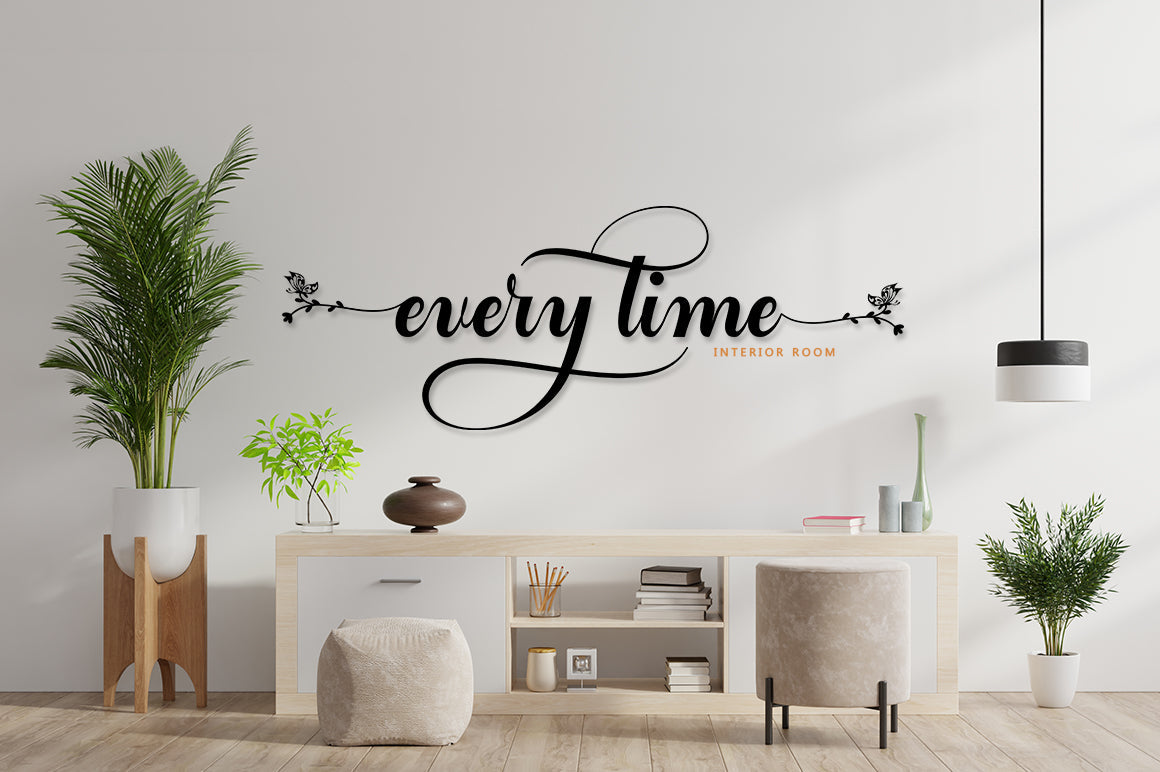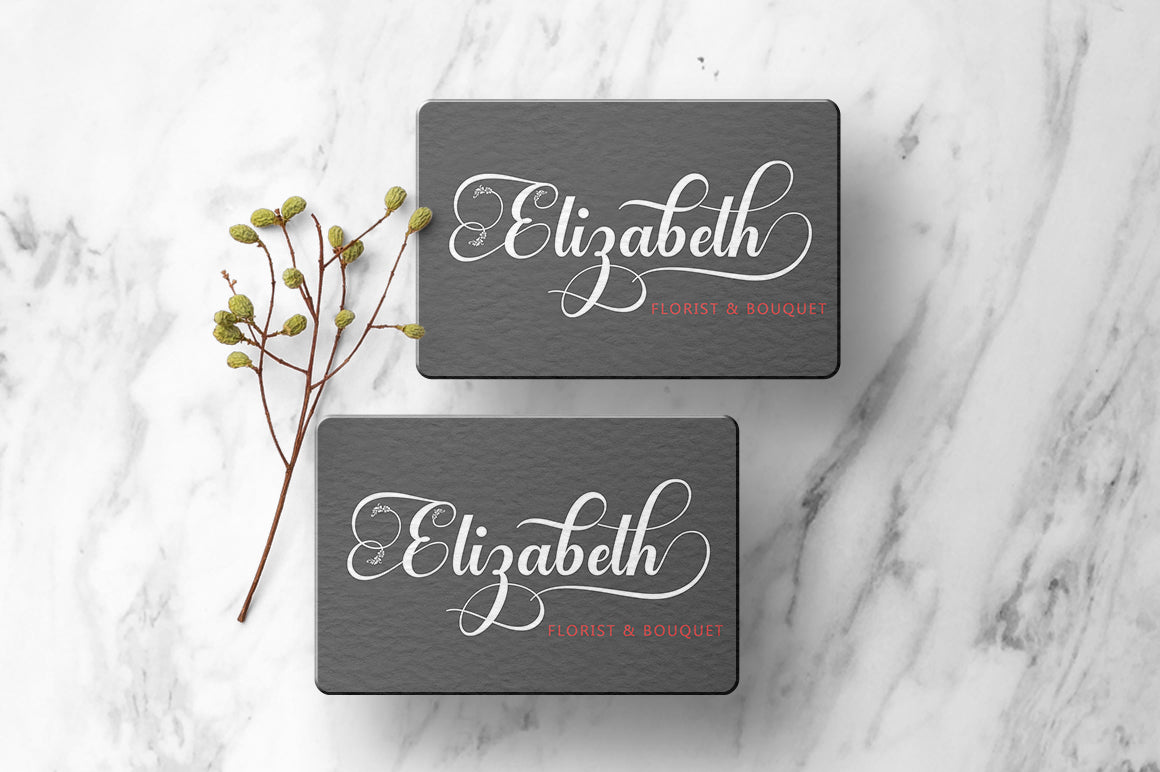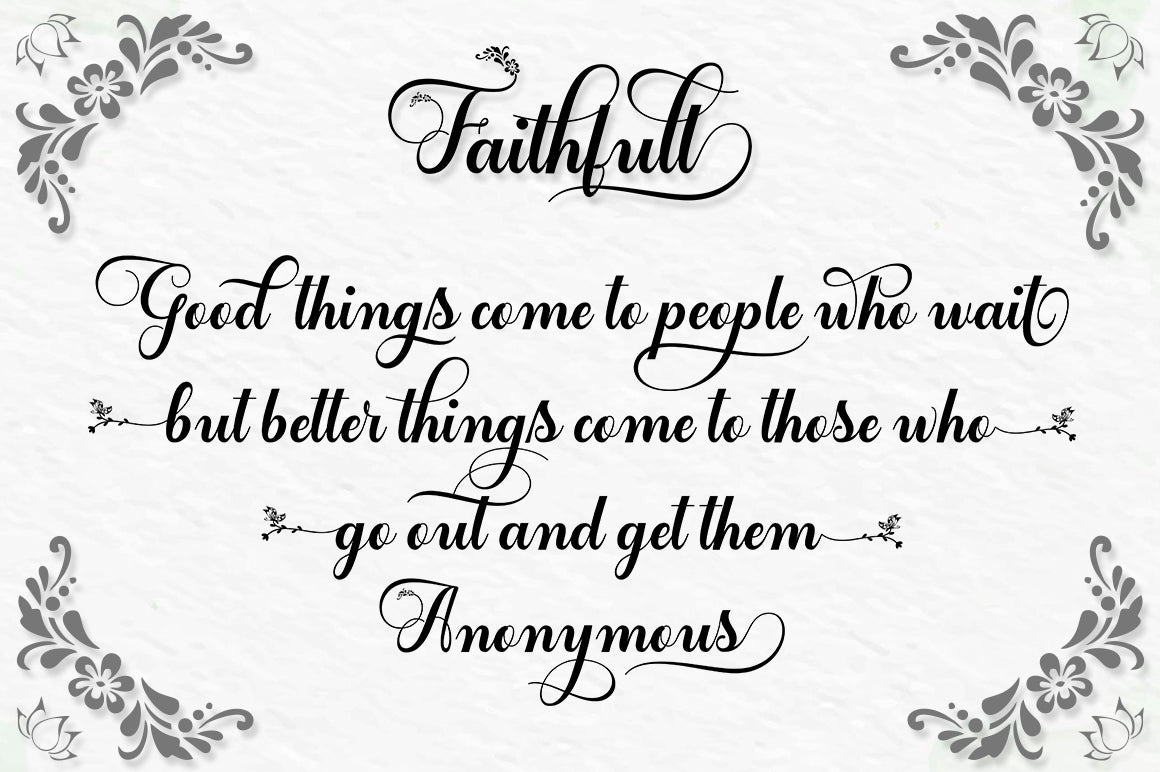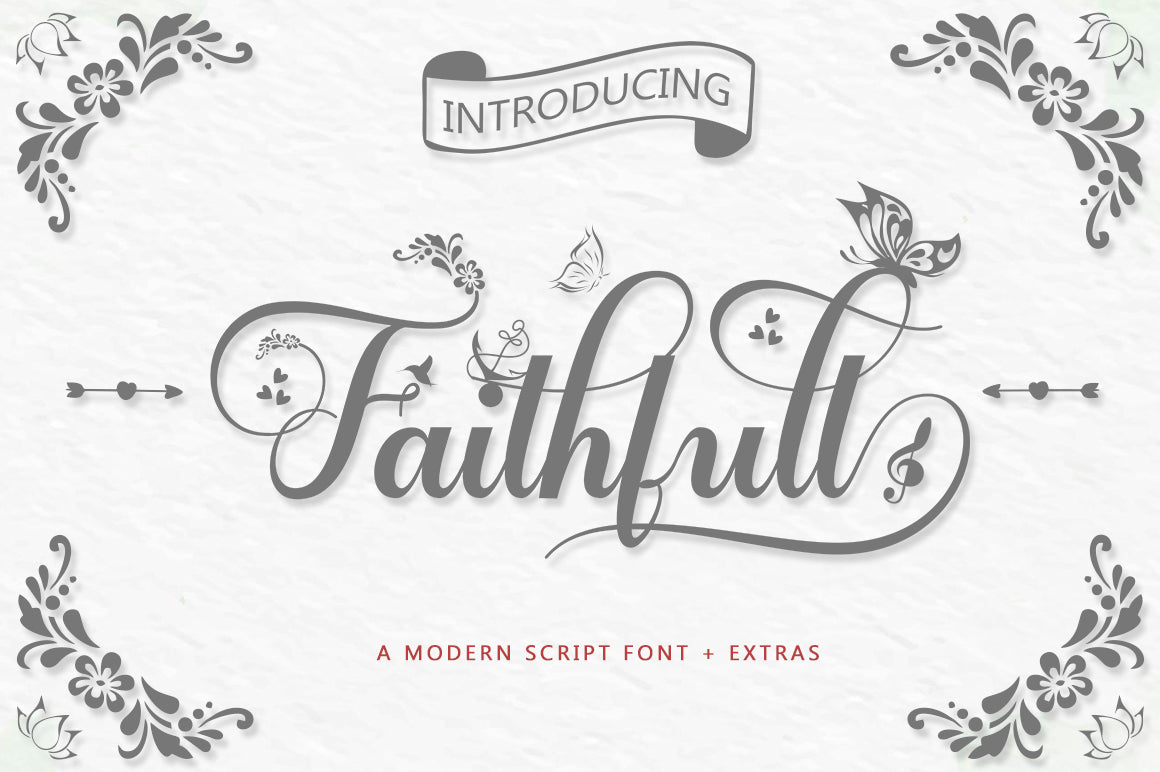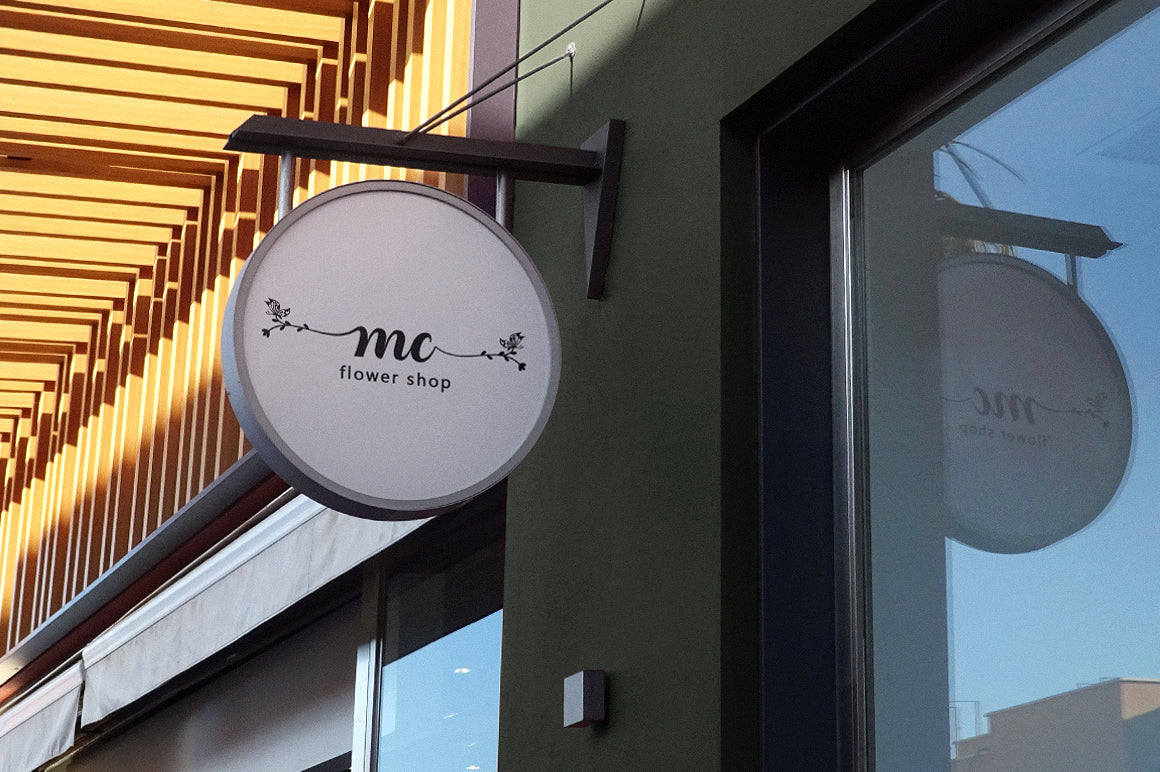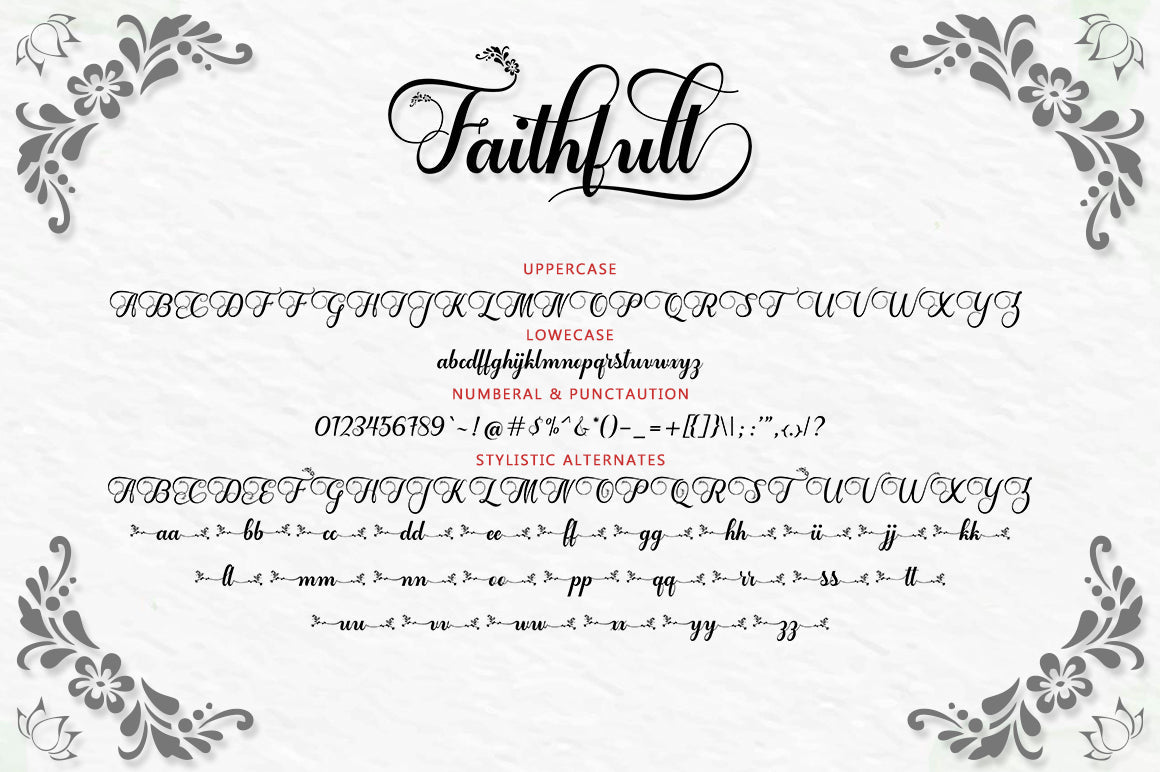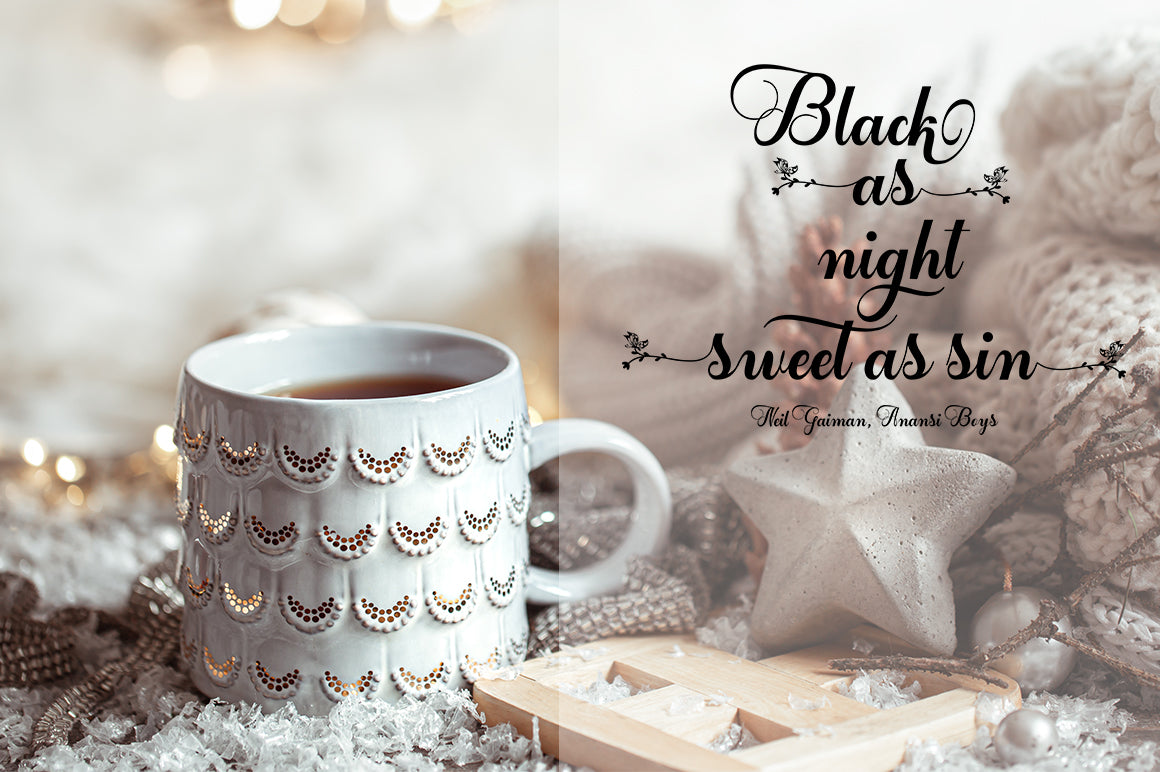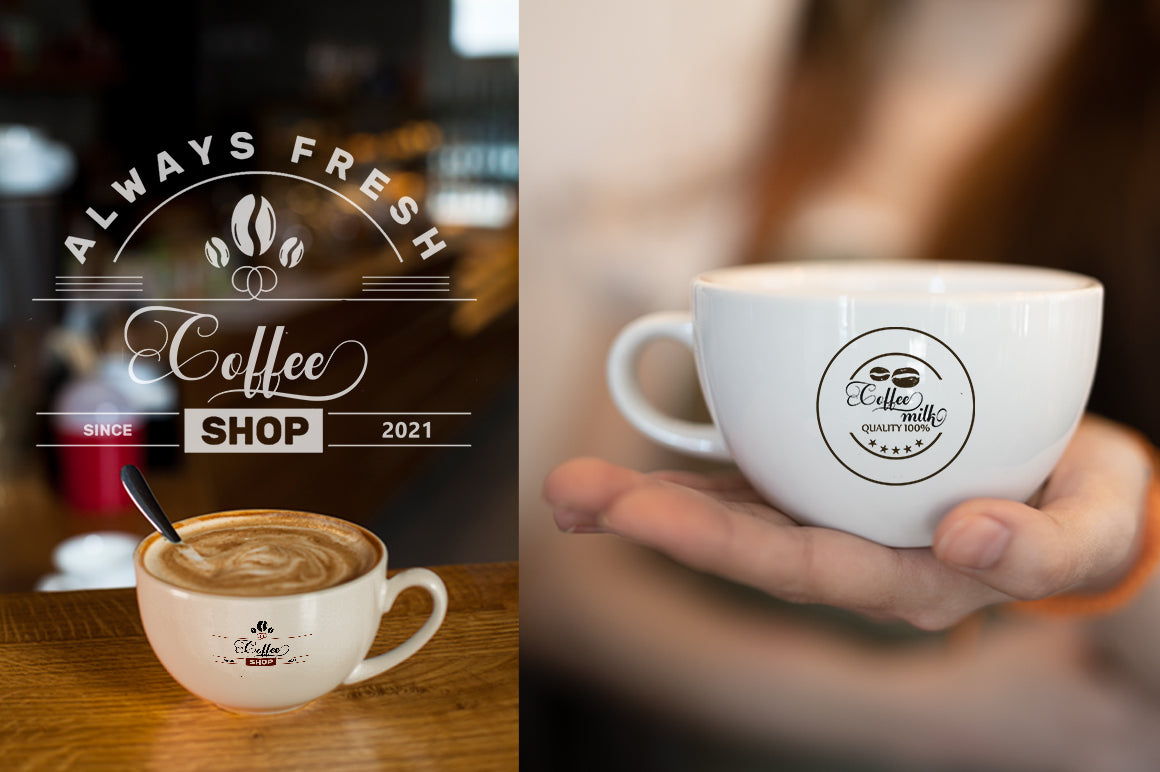
Faithfull
About Faithfull
Faithfull is a very easy-to-read Script typeface, getting a touch of bold, classic, and fun Vintage Script fonts, featuring glyphs and opentypes in alternative styles. Can be used for various purposes. such as posters, t-shirts, signboards, logos, news, badges etc. To activate the OpenType Stylistic alternative, you need a program that supports OpenType features such as Adobe Illustrator CS, Adobe Indesign & CorelDraw X6-X7, Microsoft Word 2010 or a later version. Faithfull is coded with PUA Unicode, which allows full access to all additional characters without having any special design software. Mac users can use Font Book, and Windows users can use Character Map to view and copy any additional characters for pasting into your favorite text editor / application.